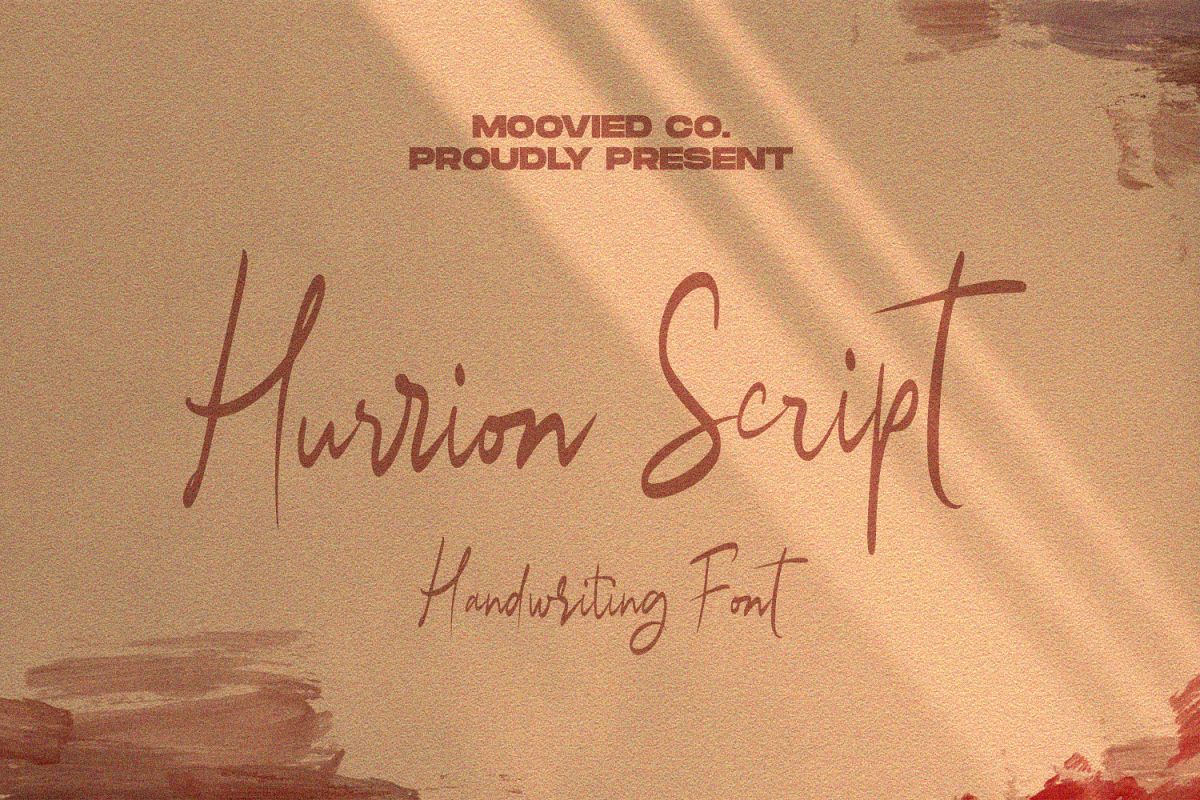
Hurrion Script
Hurrion Script  is a modern signature, It is perfect for blogging, social media, branding, product packaging, wedding invitations, branding, headlines, signage, labels, signature, book covers, posters, quotes and more.to use a beautiful alternative, you need a program that supports OpenType features such as Adobe Illustrator CS, Adobe Photoshop CC, Adobe Indesign and Corel Draw.